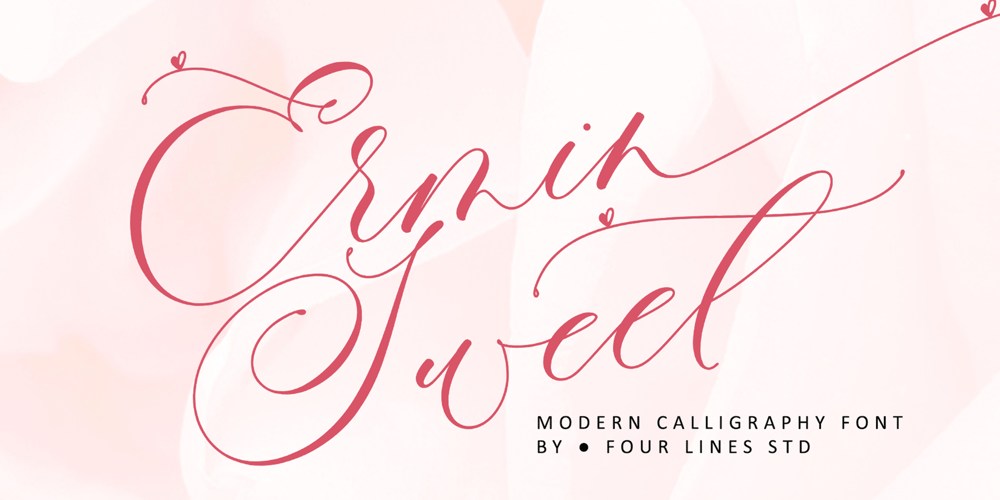
Ermin Sweet love Font Family was designed by Zain Fahroni and published by Four Lines Std. Ermin Sweet love contains 2 styles and family package options. Ermin Sweet is a lovely and delicate script font that exudes elegance and class. This font was particularly crafted for those who need a beautiful and refreshing look to their designs.